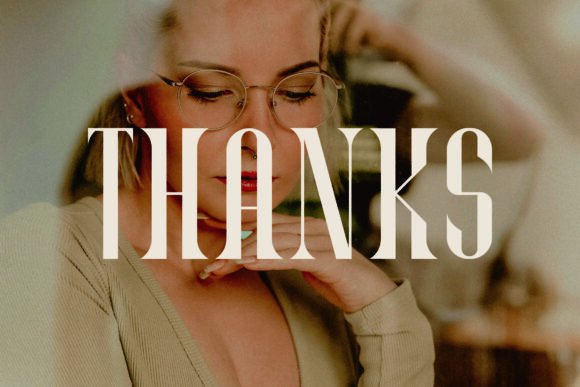
Introduction to Livinta Font
As designers, we’ve all been there – staring at a blank page, trying to find the perfect font to bring our creative project to life. For me, that moment came when I was designing a wedding invitation for a close friend. I wanted something elegant, yet bold, and that’s when I stumbled upon the Livinta Font. Its versatility and sophistication caught my eye, and I knew I had to share it with the world.
So, let’s dive into the world of Livinta Font and explore its many uses and benefits. Whether you’re looking to add some sophistication to your designs or simply want to try out a new font, Livinta Font is definitely worth checking out.
Key Features of Livinta Font
- Unique, modern design with a transparent background, allowing for versatility in creative applications.
- Designed to provide a clean and minimalist aesthetic, making it suitable for a wide range of design projects.
Honest Review: Livinta Font
As a designer, I’m always on the lookout for high-quality design resources to elevate my creative projects. Recently, I had the chance to work with the Livinta Font, and I’m excited to share my thoughts.
- ✨ High-quality font with a unique and stylish design, perfect for modern creative projects.
- ✨ Comes with a transparent background, making it easy to work with and customize.
- ⚠️ Limited font styles and weights available, which might not be ideal for designers who require a wide range of options.
- ⚠️ Some users may find the font a bit too modern or edgy, which might not suit every design project.
Overall, I’m impressed with the Livinta Font. It’s a great addition to any designer’s toolkit, and its high-quality design and transparent background make it a pleasure to work with. While it may have some limitations, I think it’s a solid choice for designers who are looking for a modern and stylish font for their creative projects.
Tips for Getting the Most Out of Livinta Font
To get the most out of Livinta Font, use it in combination with other high-quality design resources, experiment with different font sizes and colors, and don’t be afraid to try new and creative applications.
Livinta Font is perfect for a variety of creative projects, including branding, marketing materials, and digital art. It’s also great for personal projects, such as invitations, social media graphics, and more.